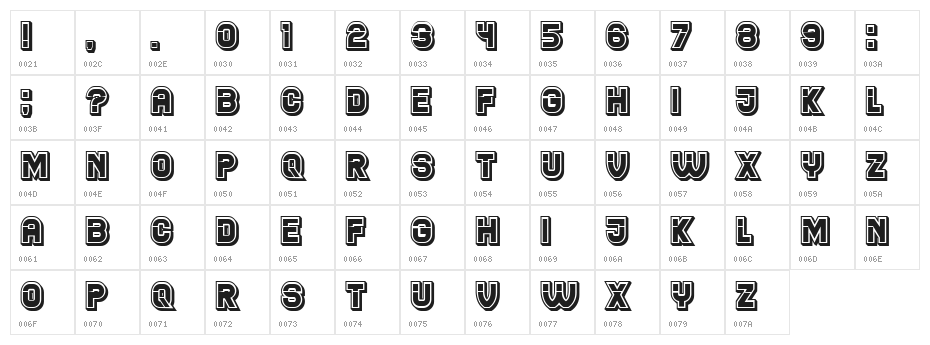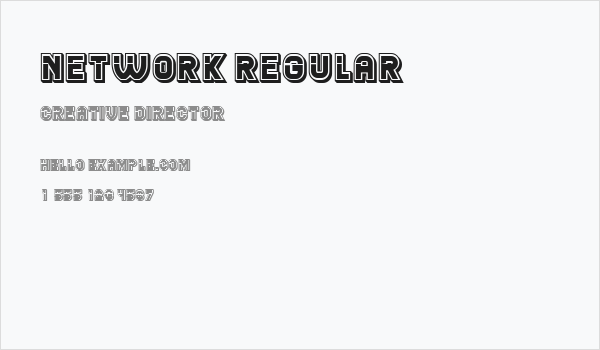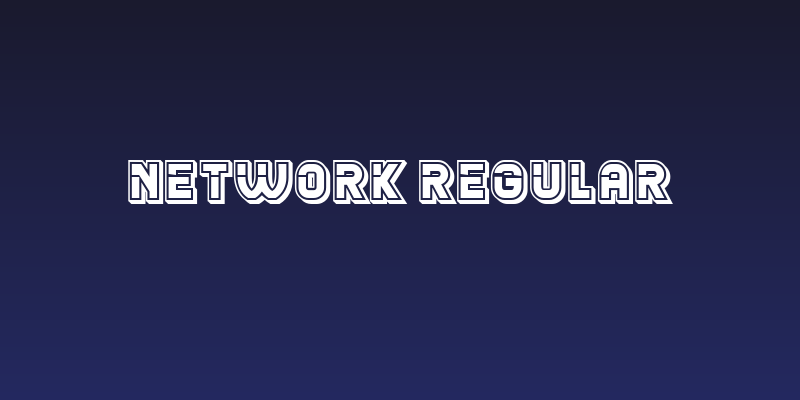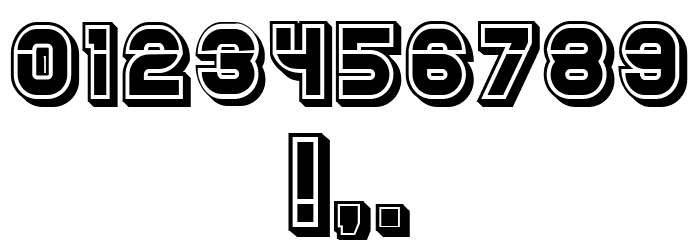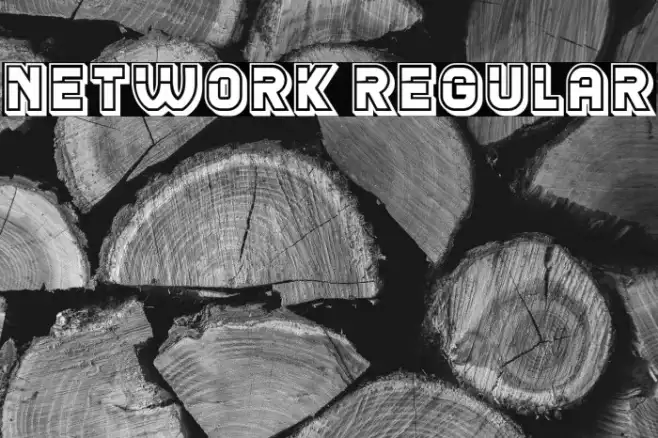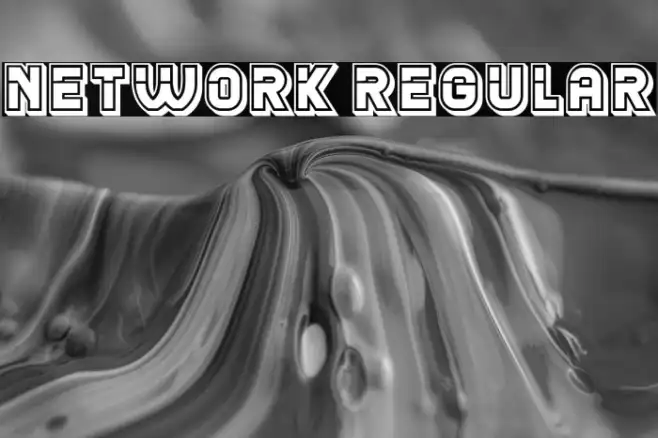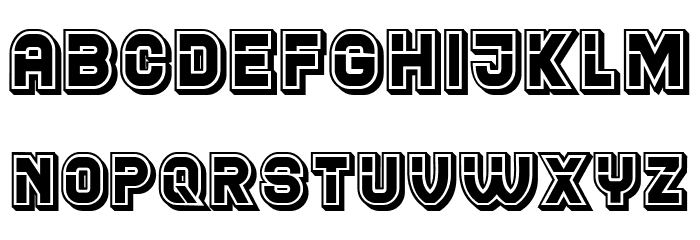
Network Regular Font
Network Regular Description
This font features a bold, geometric design with a distinct outline that gives it a three-dimensional appearance. The uppercase letters are uniform in height and width, creating a cohesive and structured look. The characters have a strong presence, making them ideal for attention-grabbing headlines or titles. The numbers and special characters maintain the same bold style, ensuring consistency across all text elements. The font's design is modern and eye-catching, suitable for projects that require a strong visual impact.
| Proposed Projects | Ideal for posters, logos, headlines, and branding materials that require a bold and modern aesthetic. |